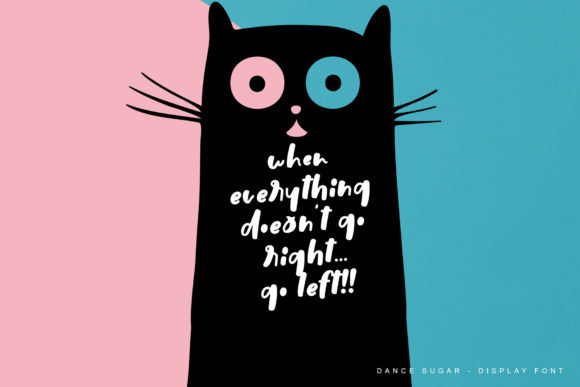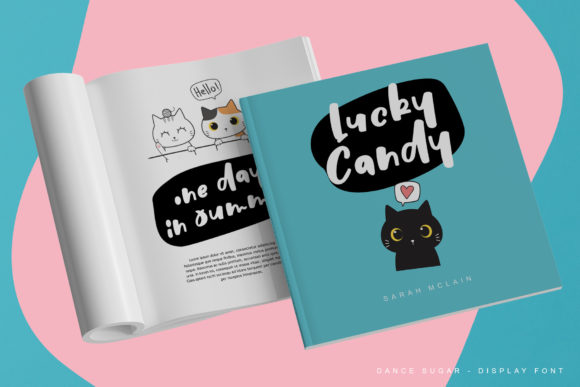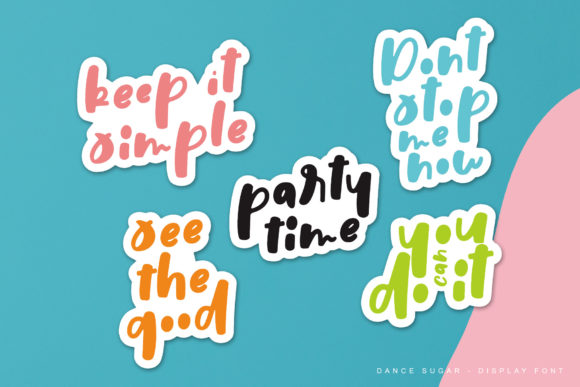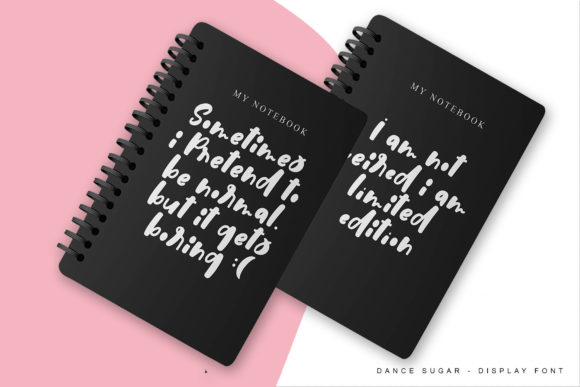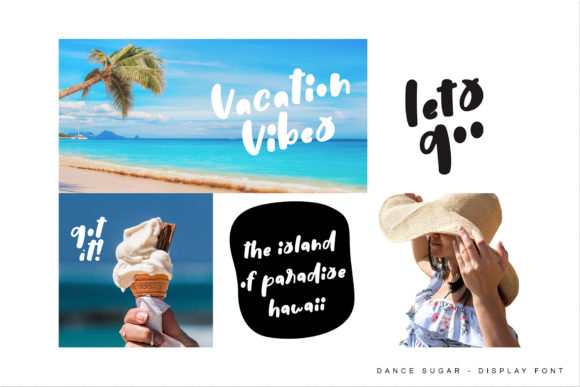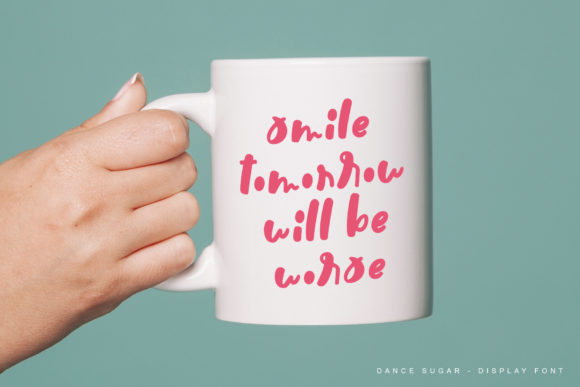
Dance Sugar Font: The Ultimate Playful and Trendy Display Font
Are you a designer, crafter, or DIY enthusiast looking for a font that can add a touch of playfulness and trendiness to your projects? Look no further than the Dance Sugar Font! This versatile and charming font is perfect for a wide range of applications, from crafts and digital design to presentations and greeting cards.
What is Dance Sugar Font?
Dance Sugar Font is a display font that is designed to bring a sense of fun and energy to your projects. Its playful and trendy style makes it perfect for anyone who wants to add a personal touch to their designs. Whether you’re creating a handmade card, a digital graphic, or a presentation, this font is sure to make your project stand out.
Key Features of Dance Sugar Font
- Playful and Trendy Style: Dance Sugar Font has a unique and stylish design that is sure to capture the attention of your audience.
- Versatile: This font can be used for a wide range of applications, from crafts and digital design to presentations and greeting cards.
- Easy to Read: Despite its playful style, Dance Sugar Font is easy to read, making it perfect for both headings and body text.
- High-Quality Design: This font is designed with high-quality graphics, ensuring that it looks great in any size or resolution.
Uses of Dance Sugar Font
Dance Sugar Font is a versatile font that can be used in a variety of ways. Here are some ideas to get you started:
- Crafts: Use Dance Sugar Font to add a personal touch to your handmade crafts, such as cards, scrapbook pages, and DIY projects.
- Digital Design: This font is perfect for digital designers who want to add a playful touch to their graphics, social media posts, and website headers.
- Presentations: Add some personality to your presentations with Dance Sugar Font, making them more engaging and fun to watch.
- Greeting Cards: Create personalized and stylish greeting cards for any occasion using this charming font.
Why Choose Dance Sugar Font?
With so many fonts available, why choose Dance Sugar Font? Here are a few reasons why this font stands out:
- Unique Style: Dance Sugar Font has a unique and stylish design that will set your projects apart from the rest.
- High-Quality Design: The font is designed with high-quality graphics, ensuring that it looks great in any size or resolution.
Tips for Using Dance Sugar Font
Here are a few tips for getting the most out of Dance Sugar Font:
- Use it as a Headline Font: Dance Sugar Font is perfect for headlines and titles, adding a touch of playfulness and trendiness to your projects.
- Pair it with Other Fonts: Experiment with pairing Dance Sugar Font with other fonts to create a unique and stylish look.
- Use it for Emphasis: Use Dance Sugar Font to add emphasis to important text, such as calls-to-action or key messages.
In conclusion, Dance Sugar Font is a playful and trendy display font that is perfect for designers, crafters, and DIY enthusiasts. Its versatile style and high-quality design make it suitable for a wide range of applications, from crafts and digital design to presentations and greeting cards. With its easy-to-use design and unique style, Dance Sugar Font is sure to become your go-to font for all your projects.